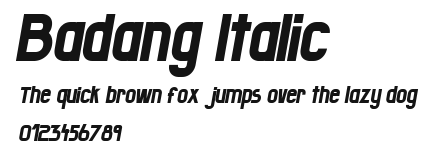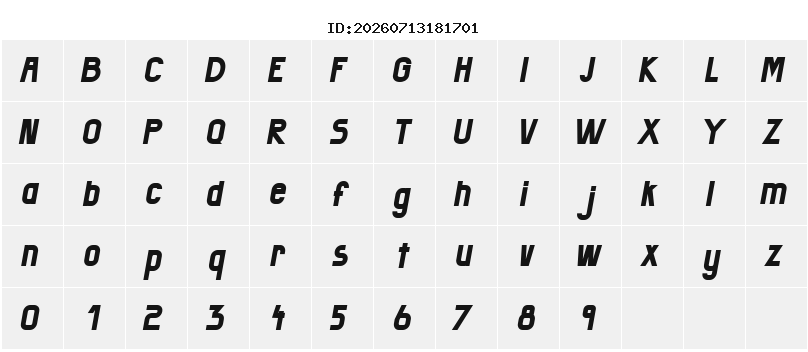
• Font Name: Badang Italic
• Full Font Name: Badang Italic
• Character Count: 119
• Designer: cenz qobbal
• Manufacturer: cenz qobbal
About Badang Italic.ttf
Badang Italic.ttf is a modern, elegant sans-serif font designed for ultimate readability and visual harmony. Perfect for branding, headlines, web design, and print materials.